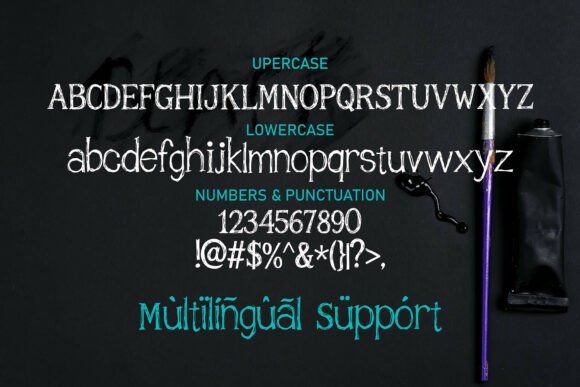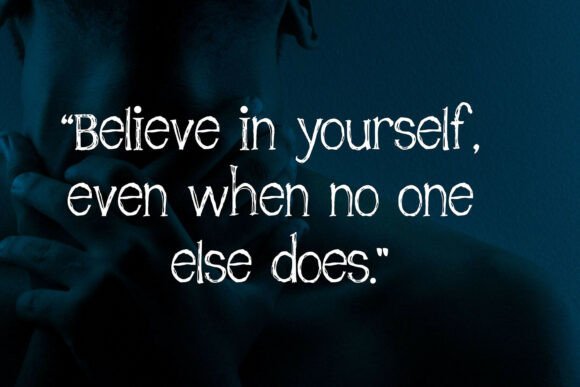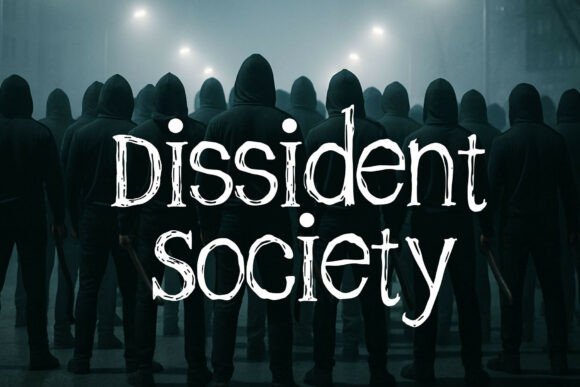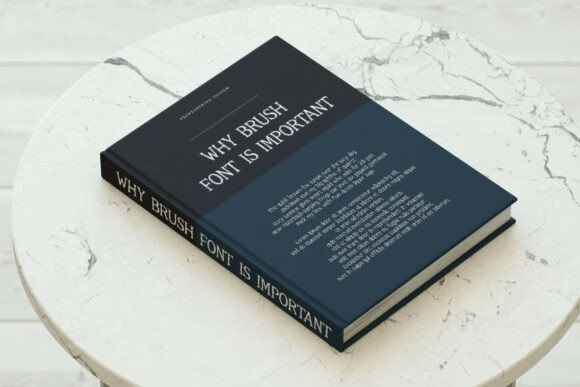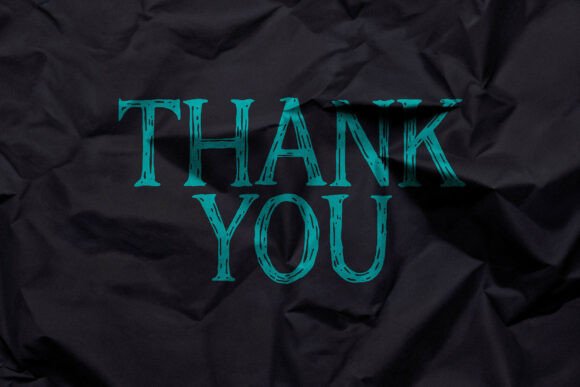
Unleashing Creativity with Distort Lines Font
I’ll never forget the design project that led me to discover Distort Lines Font. I was working on a bold poster for a local music festival, and I needed a font that would capture the raw energy of the event. After hours of scrolling through font libraries, I stumbled upon Distort Lines, and it was love at first sight! The handcrafted brush font radiates a unique personality that instantly elevated my design. In this article, I’ll share my experience with Distort Lines, its features, and how to make the most of it in your designs.
An Honest Review of Distort Lines
- ✨ Unique Texture: The distorted texture of Distort Lines adds a creative twist to any design, making it stand out from the crowd.
- ✅ High Readability: Despite its bold and edgy appeal, Distort Lines delivers high on readability, making it perfect for headlines and titles.
- 💥 Visual Impact: The font packs a punch with its visual impact, beautifully marrying creativity and functionality.
- 🌟 Versatility: Seamlessly adaptable for both print and digital platforms, Distort Lines is an excellent choice for various design projects.
While Distort Lines is an amazing font, there are a few things to keep in mind:
- ⚠️ Legibility at Small Sizes: Like many brush fonts, Distort Lines may lose legibility at very small sizes. It’s best used for headlines and titles.
- 🤔 Kerning and Tracking: Some users may need to adjust kerning and tracking to achieve optimal results, especially when using the font for longer texts.
The Designer Inspiration Behind Distort Lines
Distort Lines was inspired by the raw energy of street art and the creative freedom of hand-painted typography. The font’s designer sought to capture the essence of urban art and bring it to the digital world. The result is a font that radiates bold energy and unique personality, perfect for designs that need a creative twist.
Q: What is Distort Lines Font?
A: Distort Lines Font is a handcrafted brush font that radiates bold energy and unique personality, perfect for designs that need a creative twist.
Q: Is Distort Lines suitable for body text?
A: While Distort Lines is an amazing font, it’s best used for headlines and titles due to its bold and edgy appeal. For body text, a more traditional font might be more suitable.